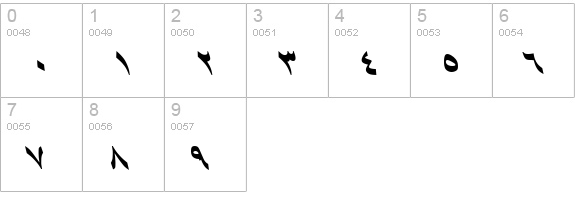
B Shiraz Italic Font Details
B Shiraz Italic is a distinctive, italic variant in the B typeface family \xE2\x80\x94 well suited to design and typography projects.
B Shiraz Italic is a stunning and elegant font that exudes sophistication and style. With its sleek and slanted design, this font adds a touch of modernity to any project. The italicized characters bring a sense of flair and drama, perfect for creating eye-catching headlines or adding emphasis to important text. What makes B Shiraz Italic even more appealing is that it is available for free download at FontsMarket.com. This means you can easily access this beautiful font without any cost, making it a fantastic choice for designers, creatives, and anyone looking to elevate their projects with a touch of class. Whether you're working on a branding project, creating invitations, designing posters, or crafting social media graphics, B Shiraz Italic is sure to make a statement. Download this font today and add a touch of sophistication to your designs!